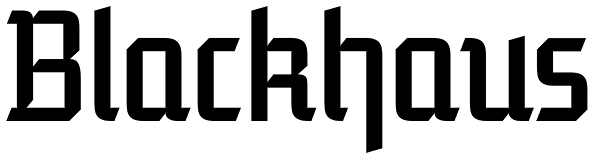
Blackhaus
Almost a half of a millennium after being mistaken for the original 4th century Gothic alphabet and falsely labeled "barbaric" by the European Renaissance, the blackletter alphabet was still flourishing exclusively in early 20th century Germany, not...